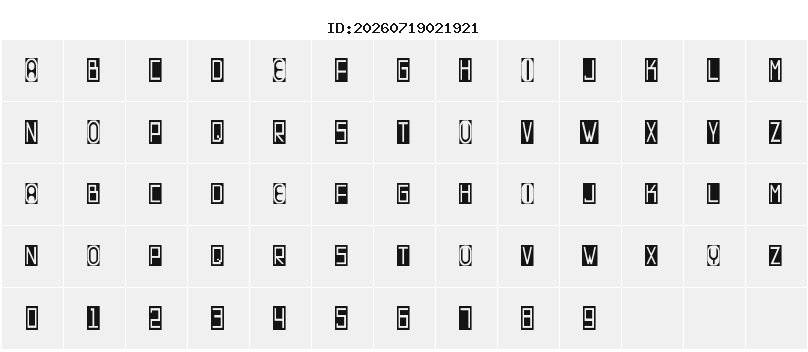
• Font Name: Contrastant zebra
• Full Font Name: Contrastant zebra
Contrastant zebra.ttf is a modern, elegant sans-serif font designed for ultimate readability and visual harmony. Perfect for branding, headlines, web design, and print materials.